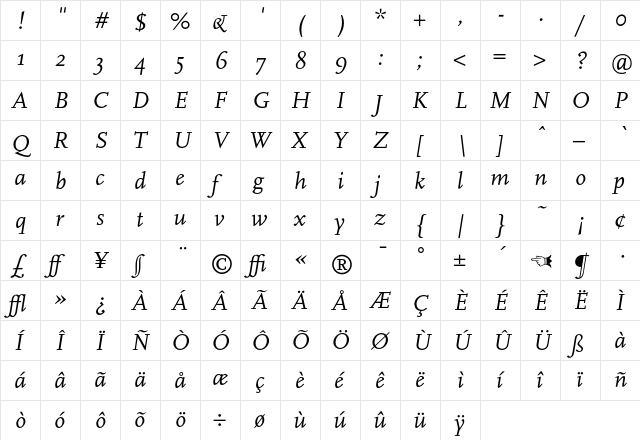
Scala Italic
Design Context for Scala Typeface
Scala is a composed and adaptable typeface that performs quietly and consistently across a wide range of design contexts. The dynamic lean of this cut emphasises speed and emphasis in any layout.
Pro Tip: Use Scala for emphasis, pull quotes, and subheadings where its slanted energy can add rhythm to the layout.